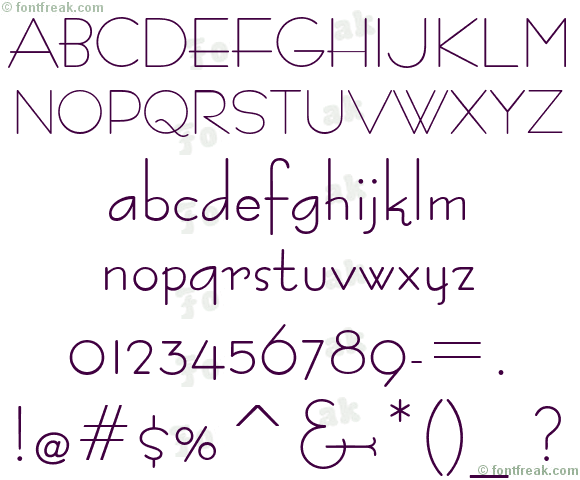
BernardoModaBold, created by renowned designer Peter Wiegel, is a striking display font that falls into the category of decorative typefaces. Its unique aesthetic blends modern flair with a touch of elegance, making it a versatile choice for various design projects. The font showcases a balanced stroke weight that offers a sense of stability while maintaining an inviting appearance. Its smooth curves and distinctive letterforms exhibit minimal contrast, creating a cohesive look that is both playful and sophisticated. The generous spacing between characters enhances readability, making it an ideal choice for attention-grabbing headlines.
The best use cases for the BernardoModaBold font include wedding invitations, where its charming design can evoke a romantic atmosphere. It's also perfect for movie posters, lending a bold and memorable touch that captures the essence of cinematic storytelling. Restaurant menus can benefit from its stylish appearance, drawing customers in with an inviting and visually appealing presentation. Additionally, this font works well in branding materials for small businesses, helping to create a unique identity that stands out in a crowded marketplace.
What sets BernardoModaBold apart is its ability to combine artistic expression with functionality. It stands out in the world of decorative fonts, offering a refreshing alternative that can enhance any design project. For those interested in incorporating this eye-catching typeface into their work, the BernardoModaBold font free download is a fantastic opportunity to explore its potential and bring a unique flair to your creative endeavors.